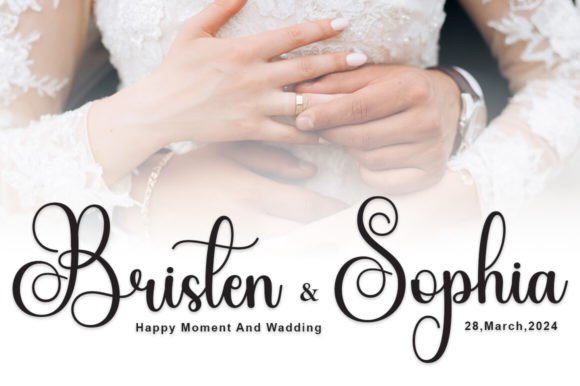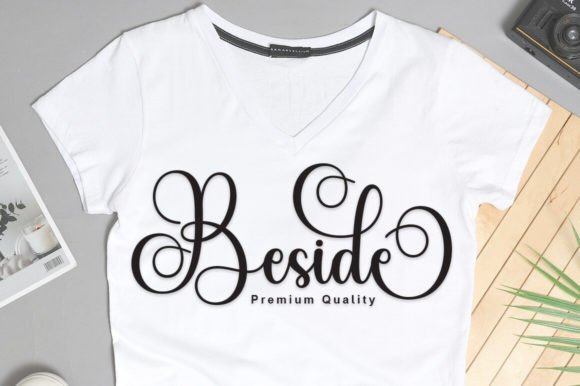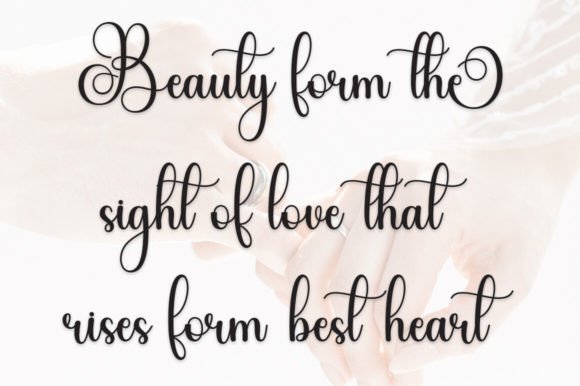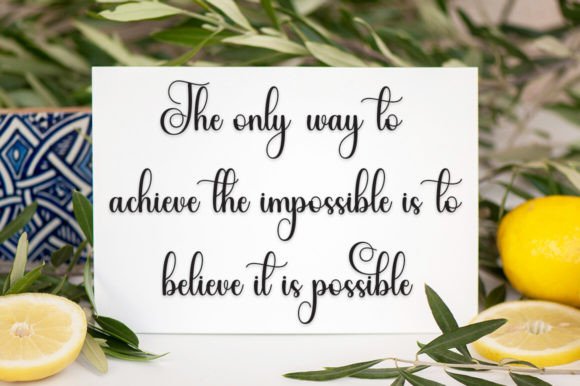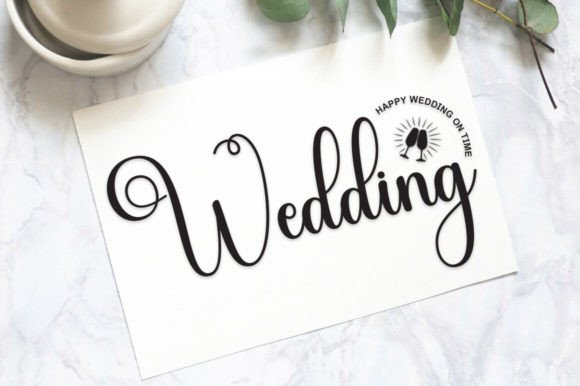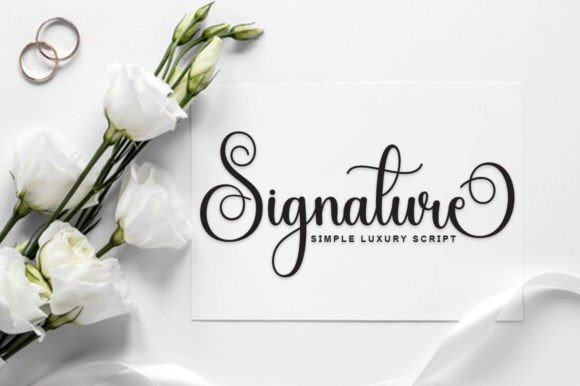
Bride Font: Elevate Your Designs with Elegant Handwritten Style
In the world of typography, few fonts manage to capture the essence of elegance and sophistication as effortlessly as Bride Font. This beautiful, flowing handwritten font is designed to bring a touch of timeless charm to your creative projects. Whether you’re a designer, crafter, or simply someone who appreciates the art of beautiful writing, Bride Font is sure to captivate you with its unique blend of artistic flair and classic appeal.
The Essence of Bride Font
Bride Font is a meticulously crafted typeface that embodies the elegance of traditional calligraphy. Each character is carefully designed to exude an air of sophistication and refinement, making it an ideal choice for projects that demand a high level of style and poise. The font’s flowing lines and delicate curves create a sense of movement and fluidity, adding a dynamic touch to any design.
Key Features of Bride Font
- Elegant Handwritten Style: Bride Font boasts a beautiful, handwritten aesthetic that adds a personal touch to your designs.
- Timeless Sophistication: With its classic appeal and refined lines, Bride Font is perfect for projects that require a sophisticated look.
- Artistic Elegance: Each character is carefully crafted to exude an air of artistic flair, making it ideal for creative endeavors.
- Versatility: Bride Font can be used for a wide range of projects, from wedding invitations and stationery to branding and advertising.
Use Cases for Bride Font
Bride Font’s versatility makes it suitable for various applications, including:
- Wedding Invitations and Stationery: Add a touch of elegance to your wedding invitations, save-the-date cards, and other stationery with Bride Font.
- Branding and Packaging: Use Bride Font to create sophisticated brand identities, product labels, and packaging designs.
- Advertising and Marketing: Elevate your advertising and marketing materials with Bride Font’s refined and artistic look.
- Graphic Design and Illustration: Incorporate Bride Font into your graphic design and illustration projects to add a touch of elegance and sophistication.
Tips for Using Bride Font Effectively
To make the most of Bride Font, consider the following tips:
- Pair with Complementary Fonts: Combine Bride Font with complementary fonts to create visually appealing typography.
- Experiment with Colors and Textures: Play with different colors and textures to enhance the overall aesthetic of your design.
- Use for Headings and Titles: Bride Font is perfect for headings and titles, adding a touch of elegance and sophistication to your design.
Bride Font is a stunning, elegant handwritten font that can elevate your designs to new heights. With its timeless sophistication, artistic elegance, and versatility, it’s an ideal choice for designers, crafters, and anyone looking to add a touch of refinement to their creative projects. Whether you’re working on a wedding invitation, branding project, or graphic design, Bride Font is sure to impress with its beautiful, flowing lines and classic appeal.